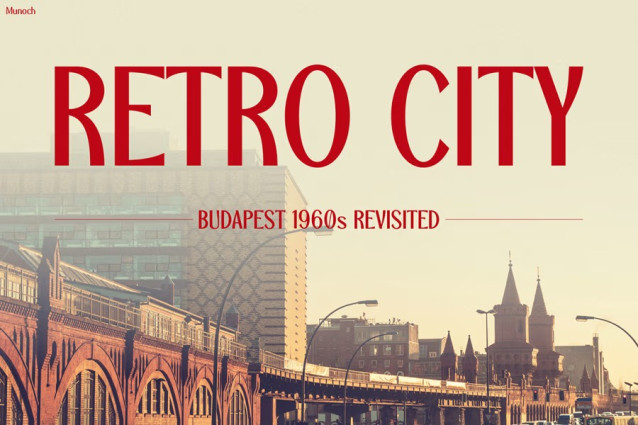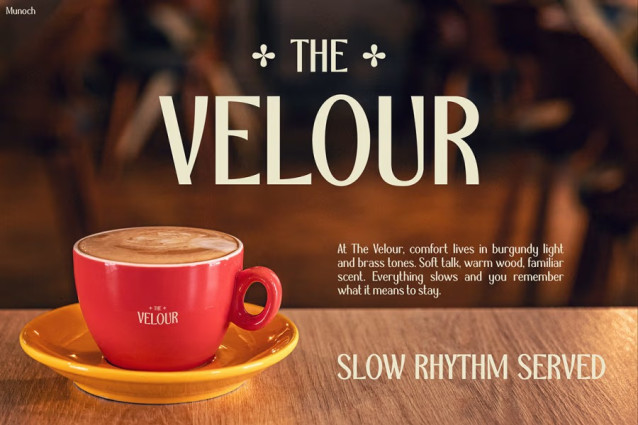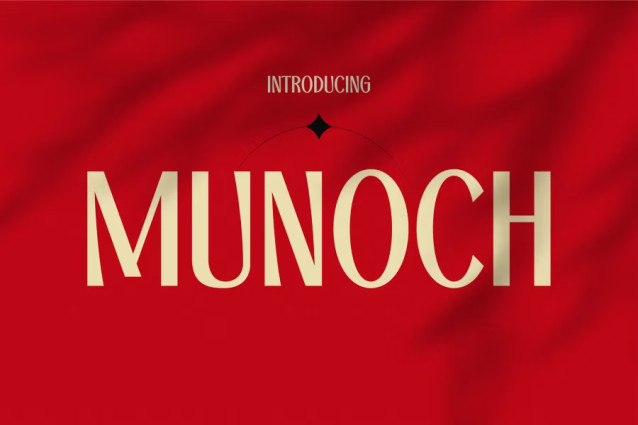
Munoch Font is more than just a font — it’s a visual journey that blends nostalgia, precision, and modern artistry. Each curve flows with intention, while every bold line radiates confidence and strength. The design captures the spirit of vintage lettering, yet its clean details and refined form give it a refreshing, contemporary edge. Moreover, the balance between geometry and flow creates perfect harmony, making MUNOCH feel both structured and organic. Whether used for headlines, logos, or posters, this typeface brings your words to life with sophistication and style.
Every letter in MUNOCH tells a story — one of creativity, elegance, and timeless design. Its bold strokes demand attention, while its subtle curves invite curiosity. As a result, it’s a font that not only looks stunning but also feels meaningful and memorable.
Retro Font MUNOCH was built for creators who want to make their designs unforgettable. It shines in luxury branding, coffee packaging, editorial covers, event posters, digital ads, and retro-themed projects. Furthermore, its versatility allows it to adapt effortlessly to modern or classic aesthetics.
Designers, creative agencies, and ambitious entrepreneurs can use MUNOCH to add instant authority and visual charm to any project. It communicates style with purpose, strength with grace, and creativity with clarity. Additionally, its exceptional readability ensures it performs beautifully in both print and screen applications. With MUNOCH, every letter becomes part of a brand’s story — bold, stylish, and full of character.
In today’s fast-paced creative world, you need a font that speaks louder, stands taller, and shines brighter. That’s why Retro Font MUNOCH delivers more than just design — it delivers presence. Therefore, when you want your brand or artwork to exude timeless confidence, MUNOCH is your perfect choice. Use it to transform simple ideas into extraordinary visuals and let your words leave a lasting impression that never fades.